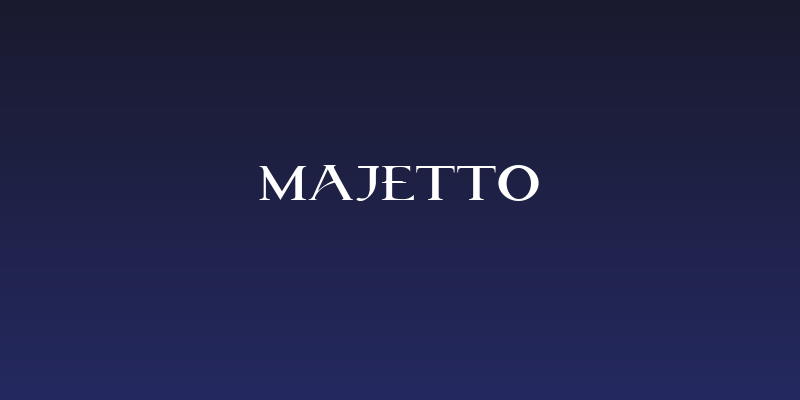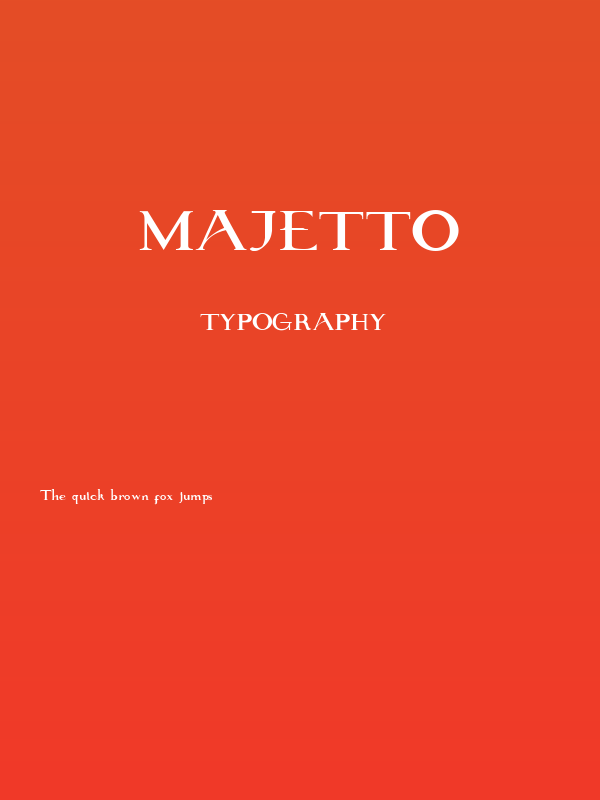
Majetto Font
Majetto Description
This font exhibits a classic serif style with a modern twist. The uppercase letters are elegantly structured with sharp serifs and a slight contrast in stroke thickness, giving them a sophisticated appearance. The lowercase letters maintain a consistent style, with some unique features such as the distinctive tail on the 'g' and the curved terminal on the 'a'. The numerals are well-balanced, with a slight slant that adds a dynamic feel. Special characters are crafted with attention to detail, ensuring they complement the overall aesthetic. This font is versatile, suitable for both formal and creative applications.